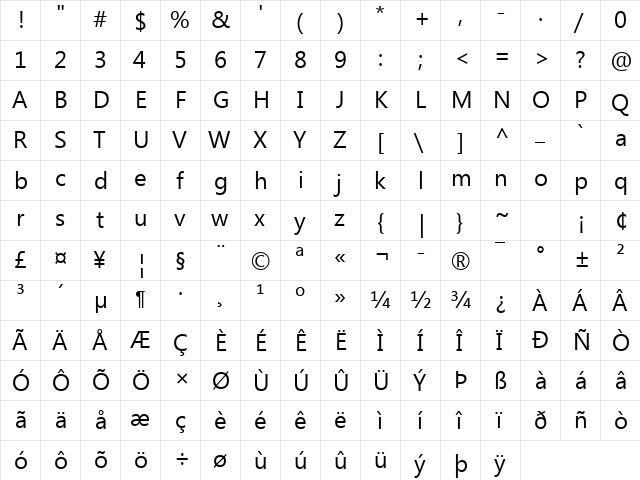
Khmer UI Regular
Design Context for Khmer UI Typeface
Khmer UI is a composed and adaptable typeface that performs quietly and consistently across a wide range of design contexts.